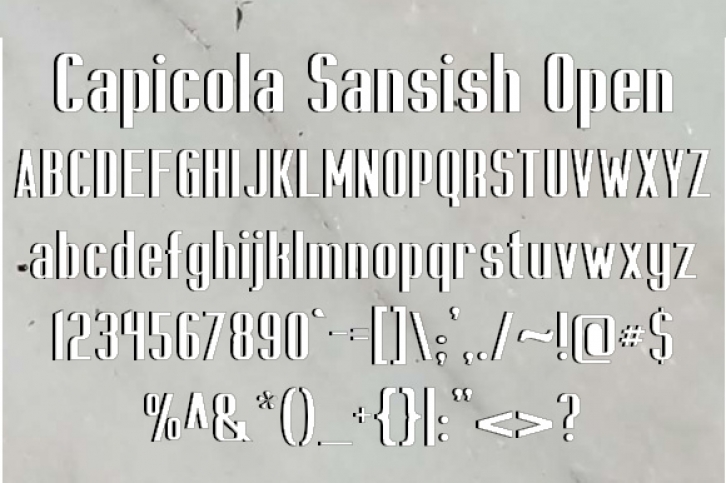
Capicola Sansish Open is a cool and bold sans serif font, perfect for displays. This font has a thin outline with a cool drop shadow, so you can use this in large format headlines and more.